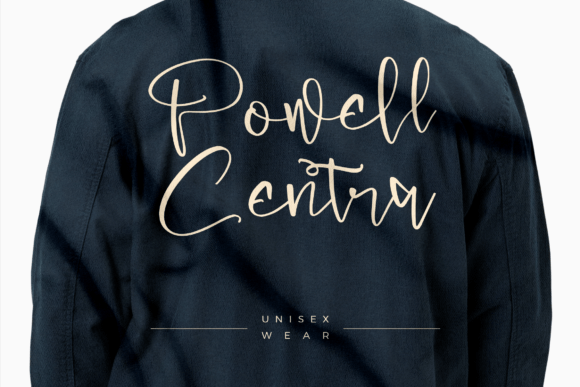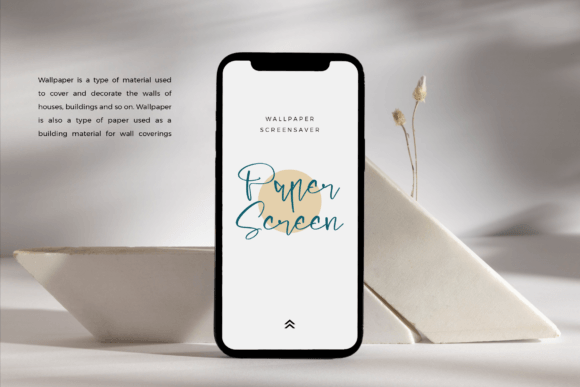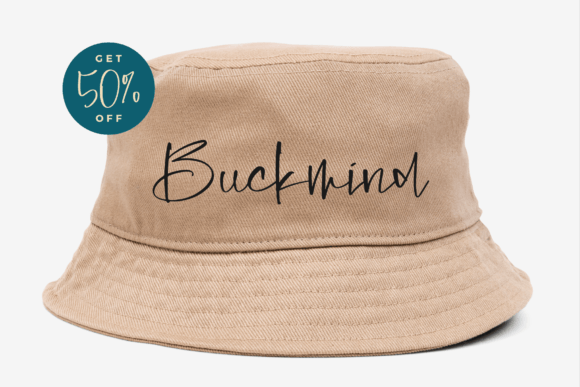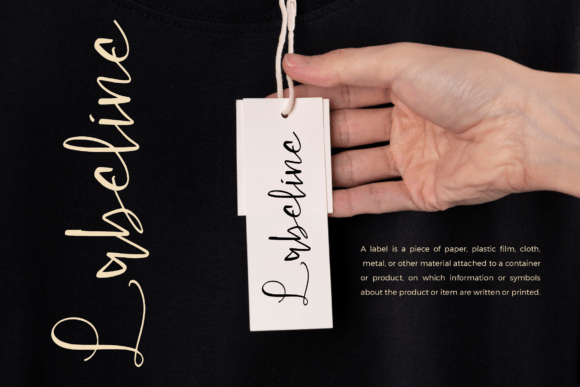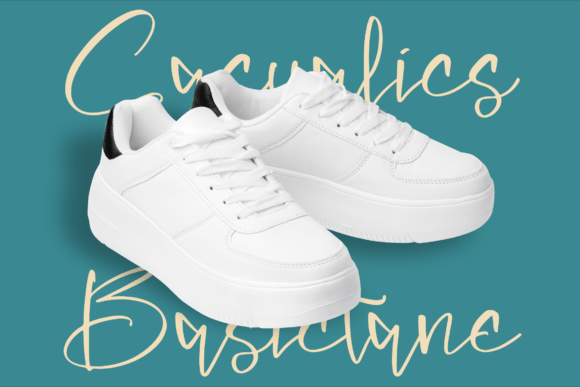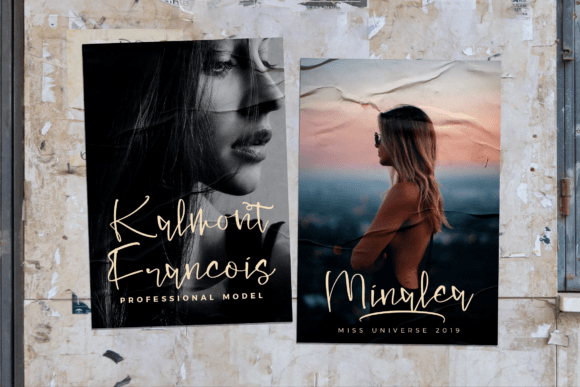
The Perfect Script Font for Your Creative Projects
Have you ever stared at a blank canvas, struggling to find the perfect font to bring your design to life? The blank page can be intimidating, but what if you had the perfect tool to make your creative vision a reality? Enter the Chabilone Butsselia Font, a stunning script font from Letterfabric Studio that’s sure to elevate your designs.
This beautiful font is designed for any project that needs a touch of elegance and sophistication, from logos and branding projects to homeware designs, product packaging, and even greeting cards. Whether you’re a seasoned designer or just starting out, the Chabilone Butsselia Font is a valuable addition to your toolkit, offering endless possibilities for creative expression.
Chabilone Butsselia Font Key Features
- Font Family: Chabilone Butsselia
- Unique Characteristics: Elegant, cursive script with a modern twist; perfect for creative projects, invitations, and wedding designs
Chabilone Butsselia Font Review
As a designer, I was excited to try out the Chabilone Butsselia Font, but I have mixed feelings about it. ✨ Here are some things that work well:
- Unique and interesting design: The font has a distinctive, handwritten feel that can add a touch of personality to your designs.
- Good for creative projects: Butsselia is a great choice for projects that require a more artistic or emotional tone, such as posters, flyers, or social media graphics.
- Supports multiple languages: The font is available in a wide range of languages, making it a great option for global projects.
However, there are also some limitations to consider: ⚠️
- Limited legibility: The font can be difficult to read, especially at smaller sizes or in body text.
- Noisy: The font has a lot of flourishes and ornaments, which can make it hard to read and may not be suitable for formal or professional projects.
- No bold or italic weights: The font only comes in a regular weight, which can limit its versatility.
Overall, I think the Chabilone Butsselia Font is a great choice for creative projects that require a unique and artistic touch. However, it may not be the best option for projects that require clear, readable text.
For the best results, use the Chabilone Butsselia font in conjunction with bold or italic text to create visual interest. You can also experiment with different font sizes and colors to create a unique look.
The Chabilone Butsselia font is ideal for creative projects, such as infographics, posters, and brochures. It is also suitable for use in digital media, such as social media graphics and websites.